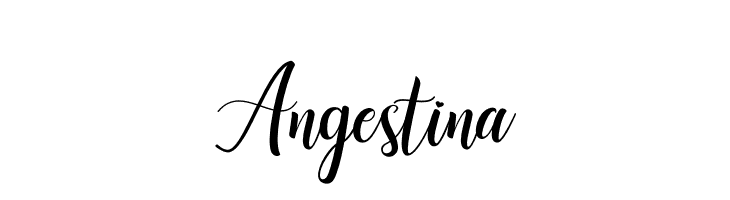
An elegant and flowing script font with sophisticated, cursive letterforms.
An elegant, flowing script font with ornate uppercase and smooth lowercase letters.